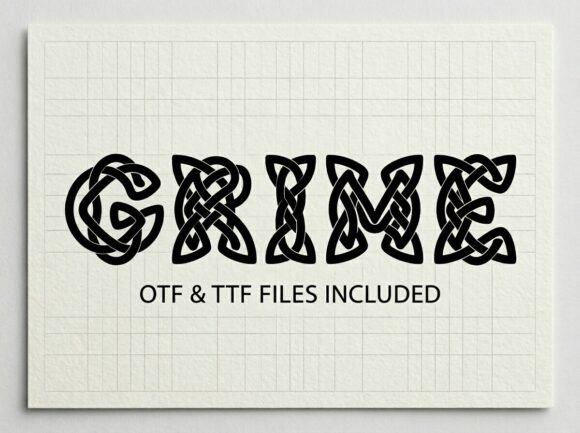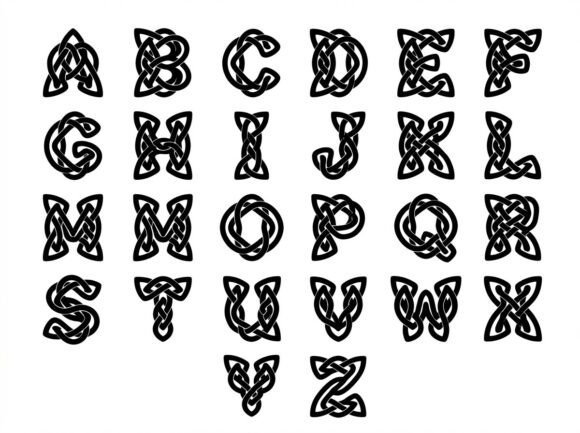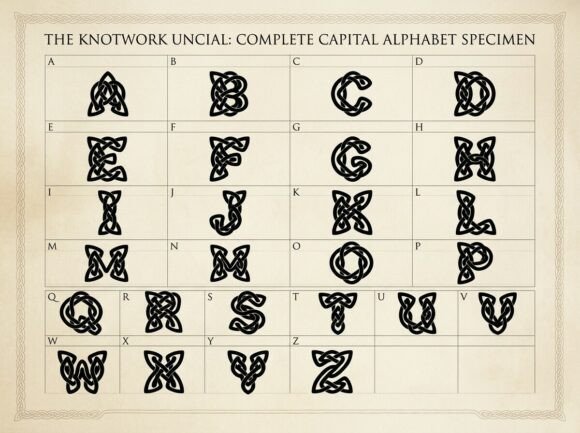
Introducing Grime Font: A Stunning Decorative Display Font
Are you tired of using the same old fonts for your creative projects? Look no further than Grime Font, a unique and artistic display font that’s sure to turn heads. Designed to be the center of attention, this font features a strong visual personality and versatile design that’s perfect for creators who want to break away from the ordinary.
What Makes Grime Font Special?
Grime Font is a decorative display font that’s specifically designed for high-impact headlines, logos, and decorative initials. With its unique artistic elements and strong visual personality, this font is perfect for creators who want to make a statement. Whether you’re working on a bold headline, artistic logo, or creative packaging, Grime Font is the perfect choice.
Key Features of Grime Font
- Unique Artistic Elements: Grime Font features unique artistic elements that set it apart from other fonts. Each letter is a work of art, making it perfect for decorative initials and high-impact headlines.
- Strong Visual Personality: This font has a strong visual personality that’s sure to grab attention. Its bold and eye-catching design makes it perfect for creators who want to make a statement.
- Versatile Design: Grime Font is versatile enough for use in a variety of creative projects, including bold headlines, artistic logos, and creative packaging.
- Professional and Polished Finish: Despite its bold and artistic design, Grime Font maintains a professional and polished finish that’s perfect for use in high-end creative projects.
Please note that Grime Font is an ALL-CAPS (Uppercase Only) display typeface. This means that it does not include lowercase letters. It’s specifically designed for high-impact headlines, logos, and decorative initials where every letter is a work of art.
Who is Grime Font For?
Grime Font is perfect for:
- Graphic Designers: If you’re a graphic designer looking for a unique and artistic font to use in your creative projects, Grime Font is the perfect choice.
- Log designers: If you’re designing a logo for a client or your own business, Grime Font is a great option.
- Crafters: If you’re a crafter who loves to create handmade products, Grime Font is perfect for use in your crafting projects.
- Marketing and Advertising Professionals: If you’re looking for a bold and eye-catching font to use in your marketing and advertising campaigns, Grime Font is a great choice.
- Use it sparingly: Because Grime Font is a decorative display font, it’s best to use it sparingly. Use it for headlines, logos, and decorative initials, but not for body text.
- Pair it with a simple font: To create visual interest, pair Grime Font with a simple font for body text.
- Experiment with colors and textures: Grime Font looks great in a variety of colors and textures. Experiment with different options to find the one that works best for your project.